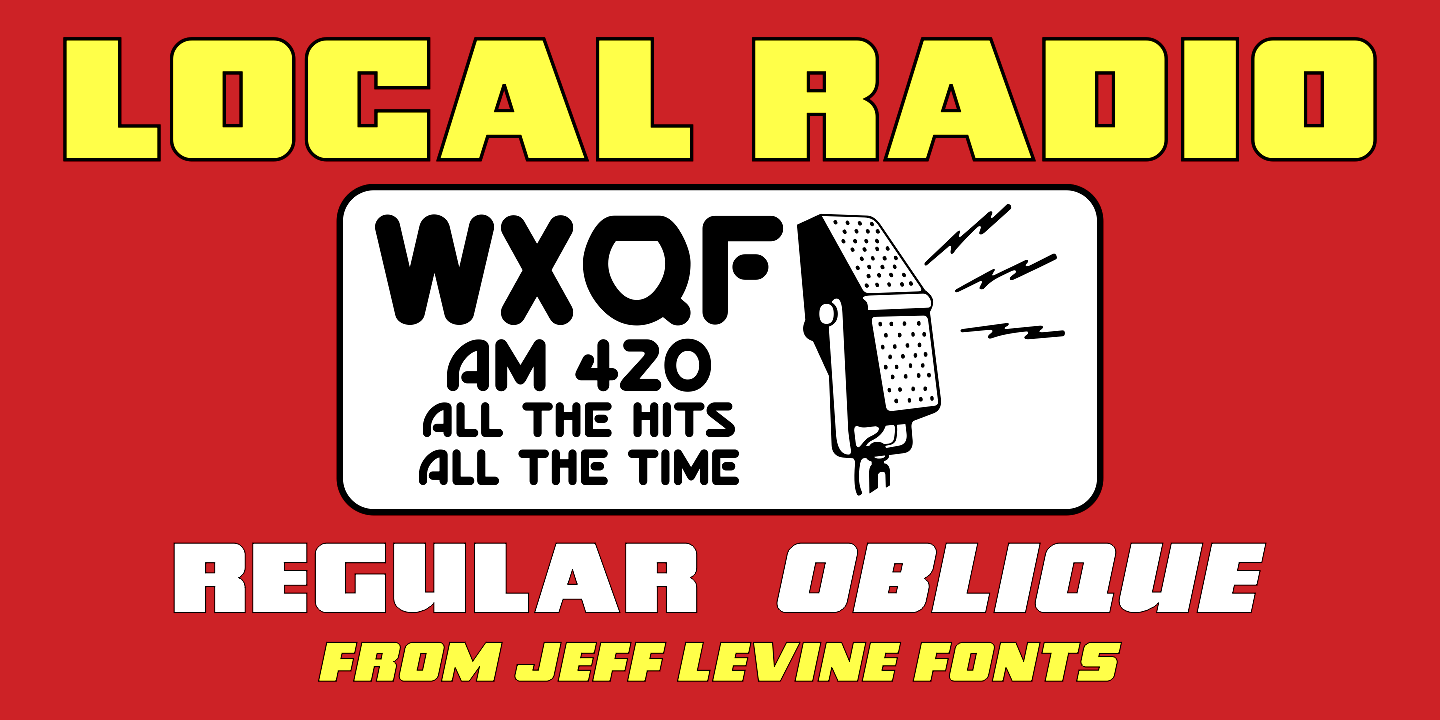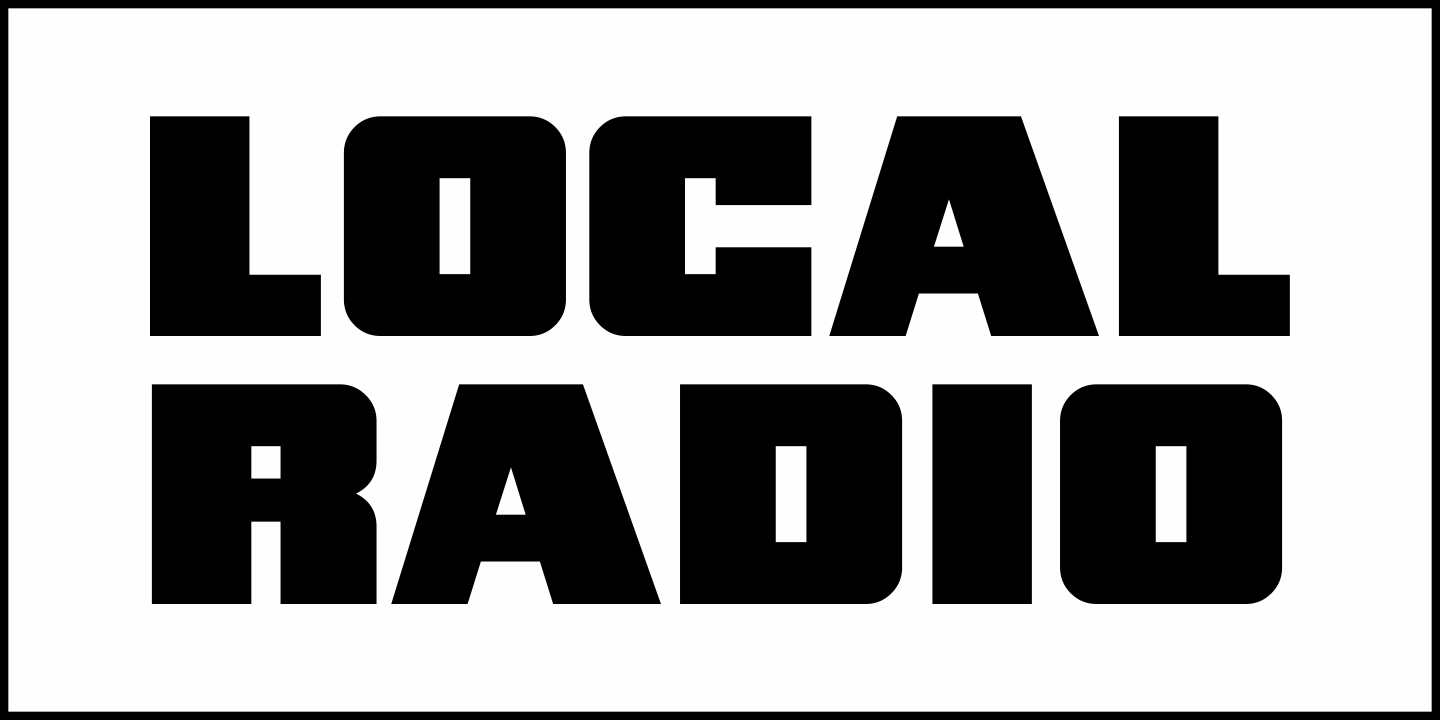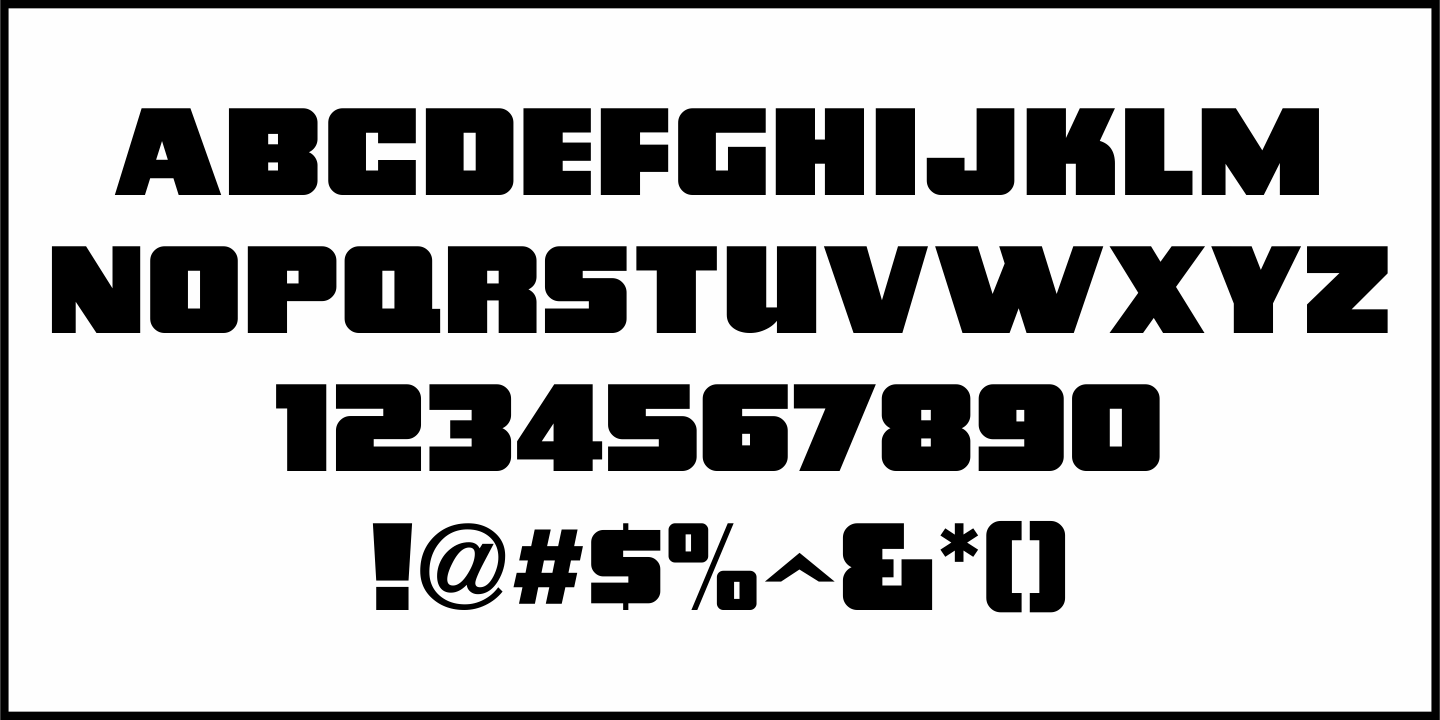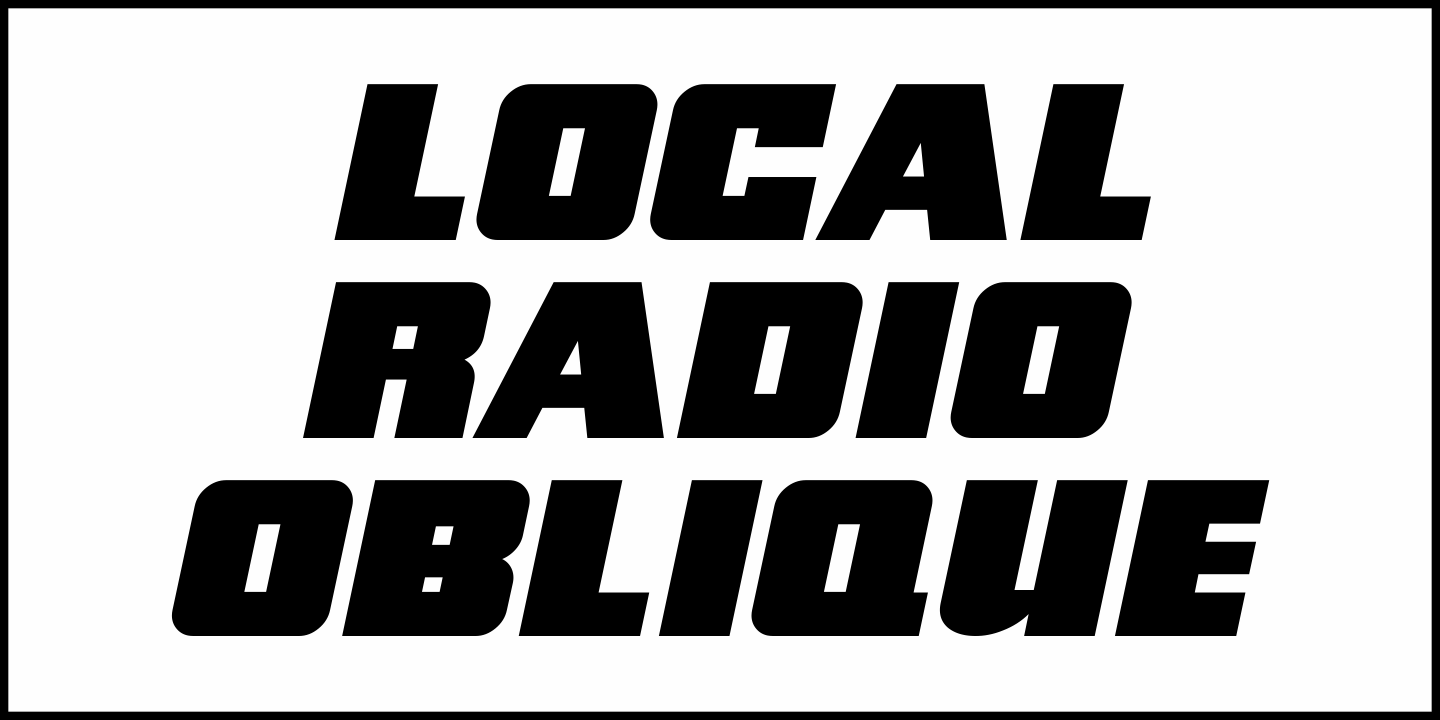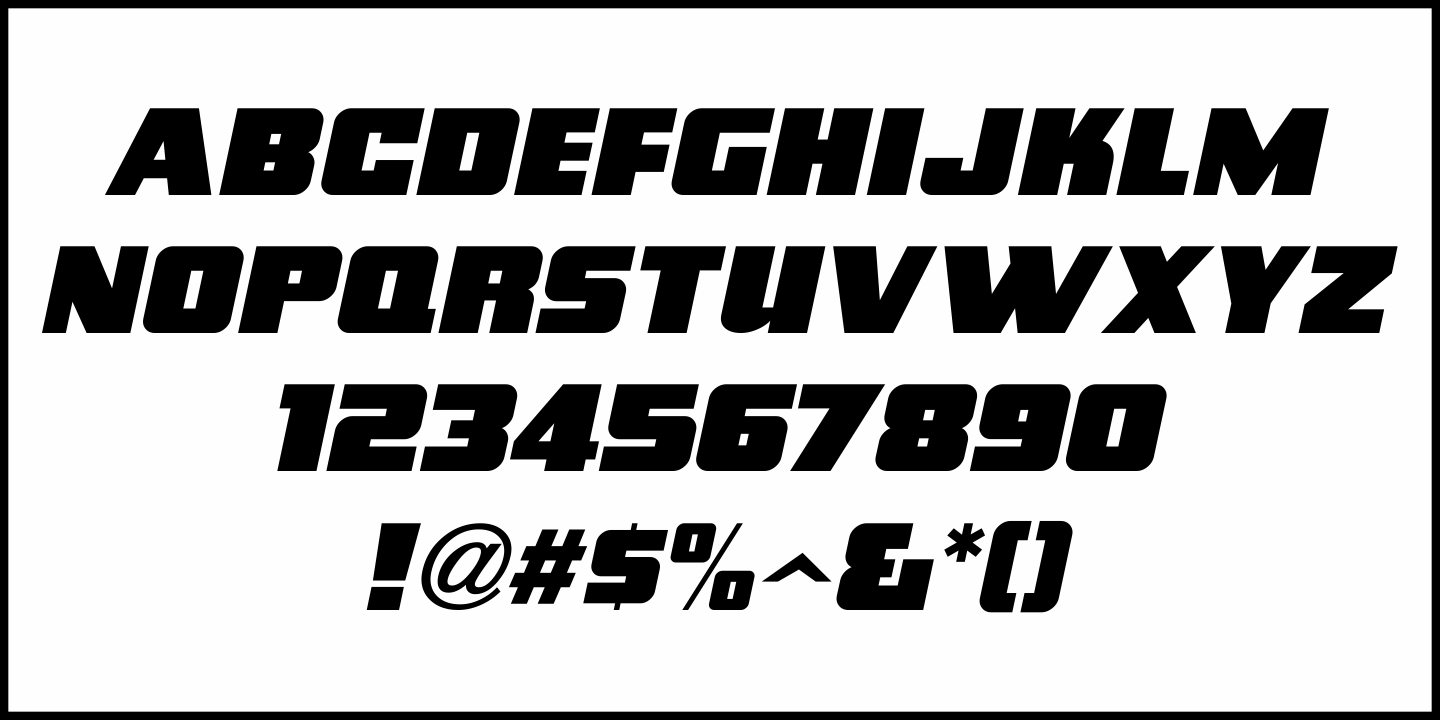
Local Radio
An ad in the March 15, 1940 issue of Broadcasting Magazine showcased AM radio station WCKY (Cincinnati, Ohio). The hand lettering in that advertisement was done in an ultra bold, squared sans with rounded corners.
This is now available as Local Radio JNL in both regular and oblique version.